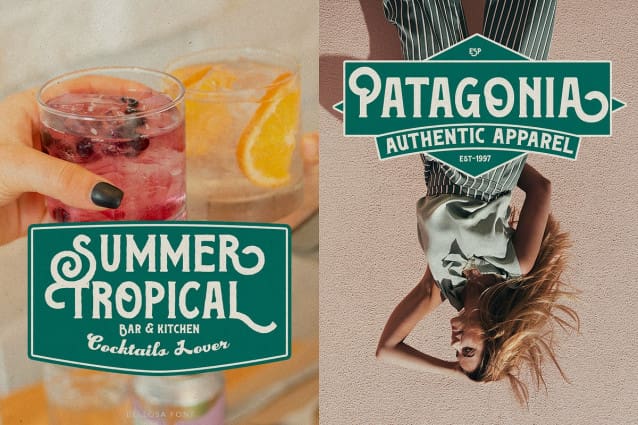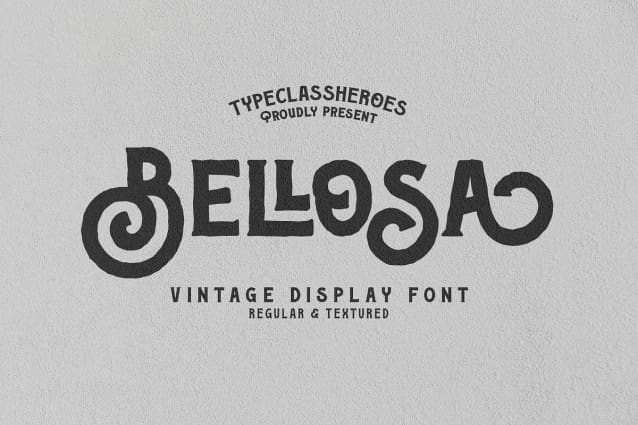
Bellosa Vintage Font
Bellosa Vintage Font is a classic display font. It blends easily and is perfect for creating great traditional styles for quotes and easily create logos or badges for your logo with this font. Comes with regular and textured special features with many alternate and splicing typefaces.